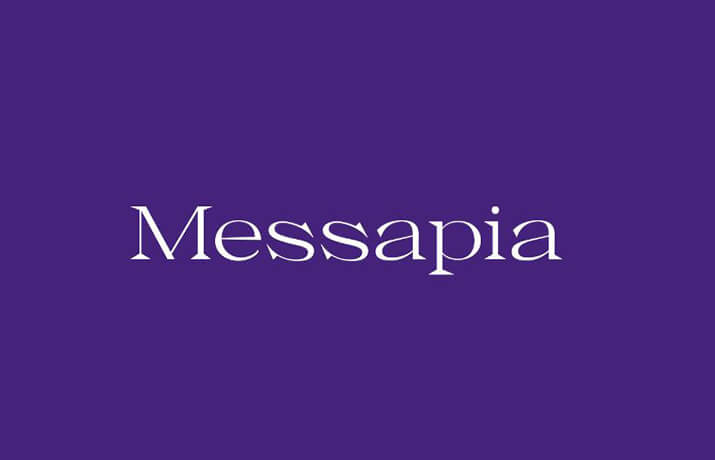
Messapia Font is a display typeface that got beautiful contrast, and plenty of potential to work well in a wide variety of design scenarios.
The Collletttivo Font Foundry has taken the charge of developing and releasing this typeface on 20 April 2019.
It consists of a clever arrangement of letters and numbers. Highlighting excellent clarity even in short text and long text paragraphs.
This wonderful font has come in two different styles. The first one is Messapia Regular which features serif textures and a thin appearance.
This is a great choice for logo, social media posters, flyers, brochure layout, books cover, comic books, video titles, website headlines, games text form, as well as many other similar things.